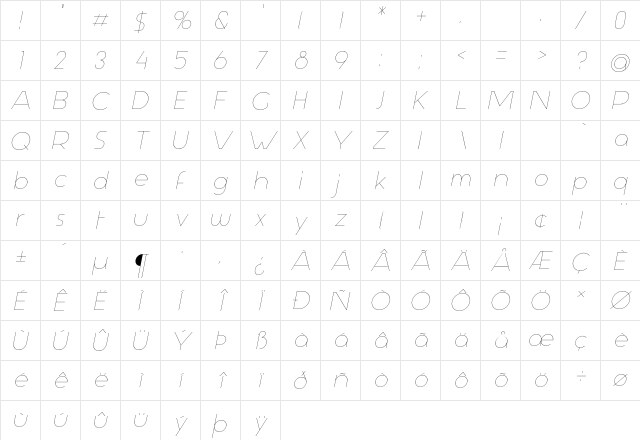
Aspergit Light Italic
| Foundry | Paulo R |
| Designer | Paulo R |
Design Context for Aspergit Typeface
Aspergit offers clean, dependable letterforms without strong stylistic allegiance, making it a practical choice for designers who need flexibility. The dynamic lean of this cut emphasises speed and emphasis in any layout. Its slender proportions lend an understated elegance to any composition.
Pro Tip: Use Aspergit for emphasis, pull quotes, and subheadings where its slanted energy can add rhythm to the layout.